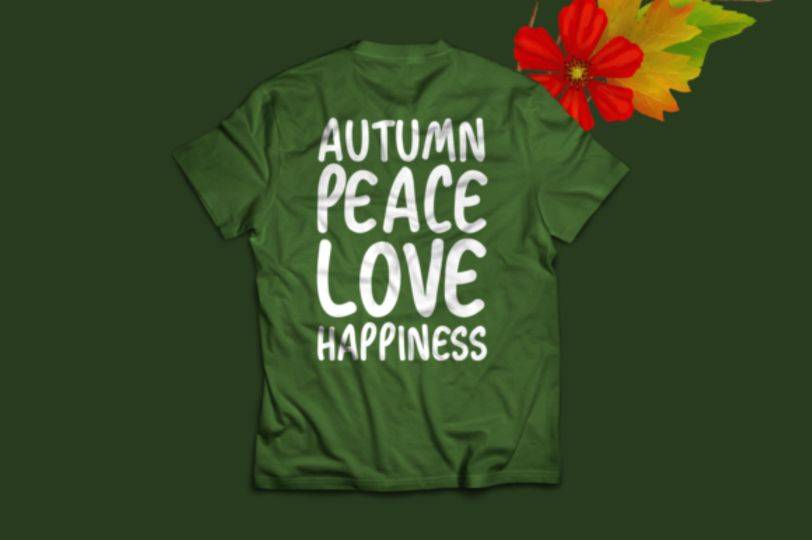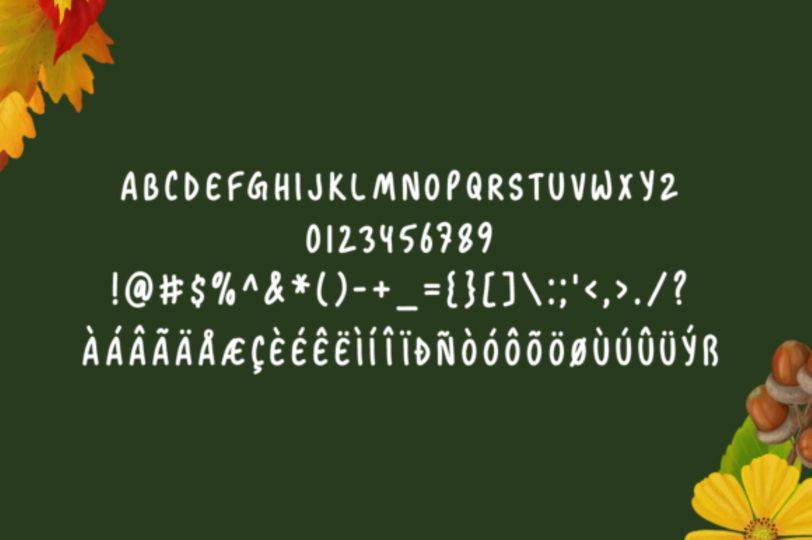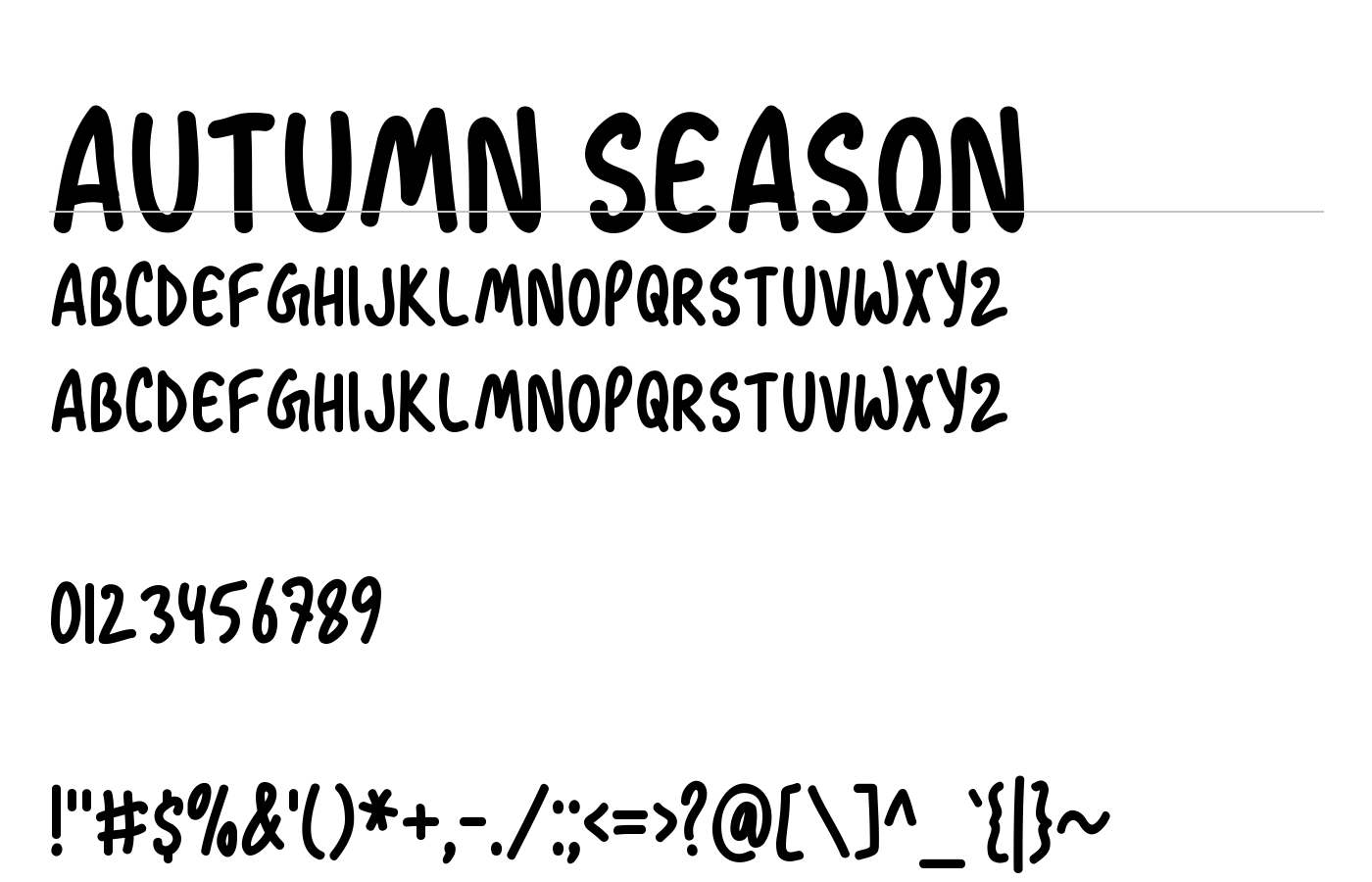
Autumn Season is a playful and friendly handwritten sans serif font with a casual, organic feel. Its slightly irregular strokes and lively character shapes give it a warm, approachable personality, making it perfect for creative projects, informal branding, children’s content, and casual headlines. This font works well in designs that aim to convey a personal touch and lighthearted charm.
Autumn Season Font
About Autumn Season Font